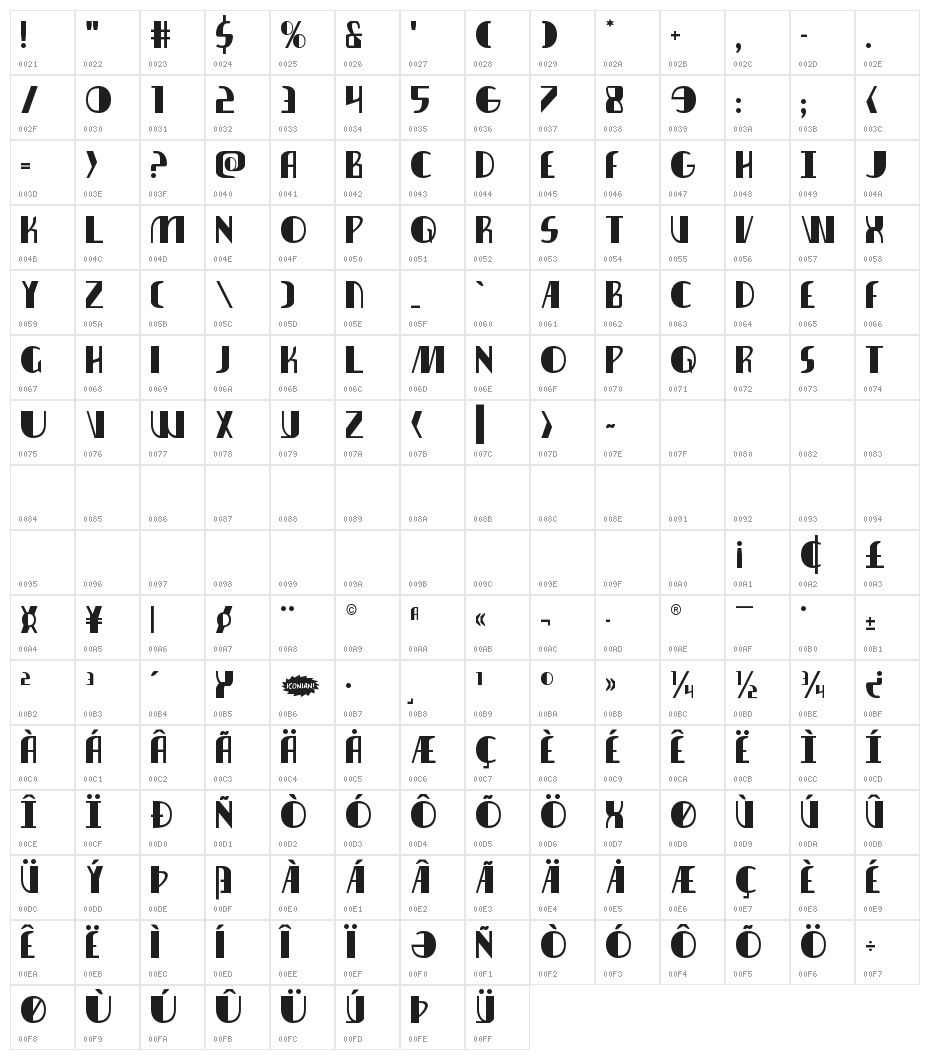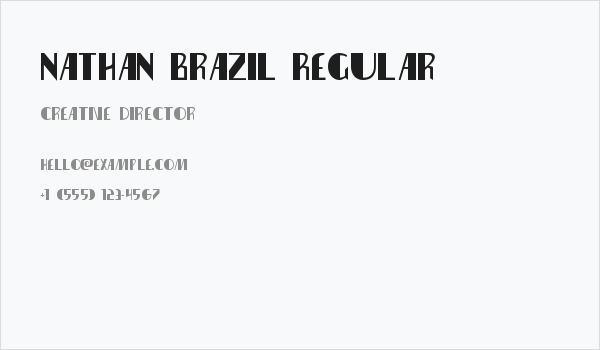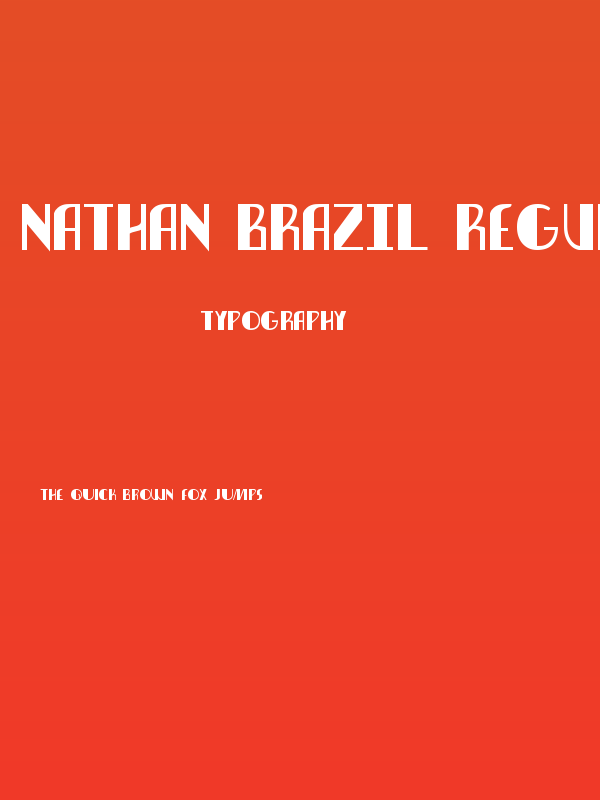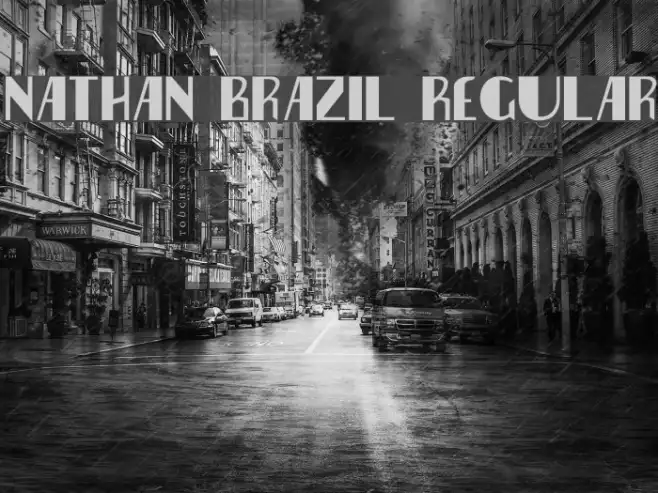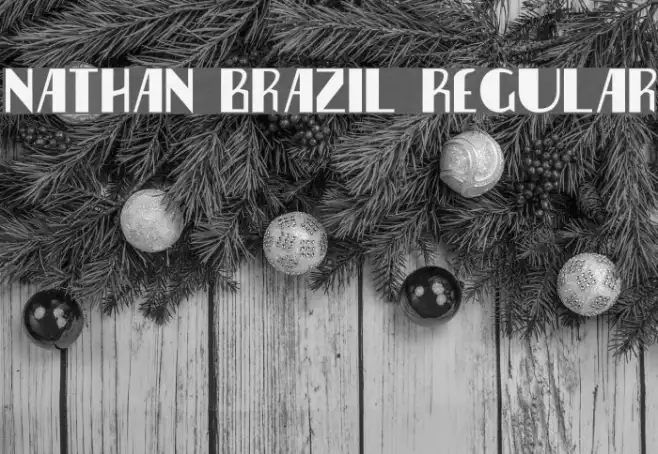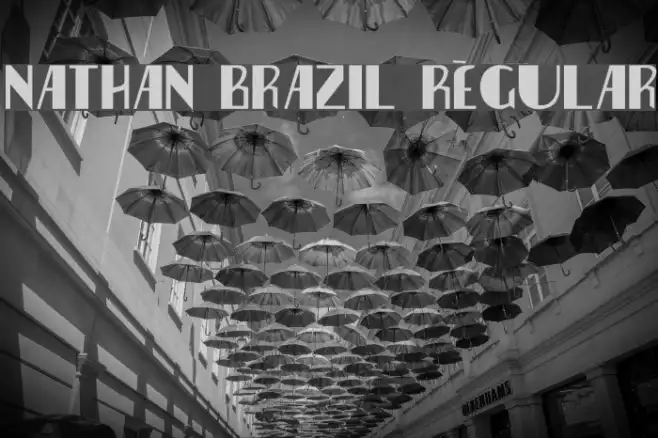
Nathan Brazil Regular Font
Nathan Brazil Regular Description
This font features a bold and striking design with a modern flair. The characters are crafted with a unique geometric style, incorporating sharp angles and clean lines. The uppercase letters exhibit a strong presence, while the lowercase letters maintain a consistent aesthetic. The numerals are distinct and easily readable, complementing the overall design. Special characters are designed to match the boldness of the alphabet, making this font versatile for various applications. Its high contrast and wide character spacing enhance readability and visual impact.
| Proposed Projects | Ideal for branding, poster design, headlines, and advertising materials. |